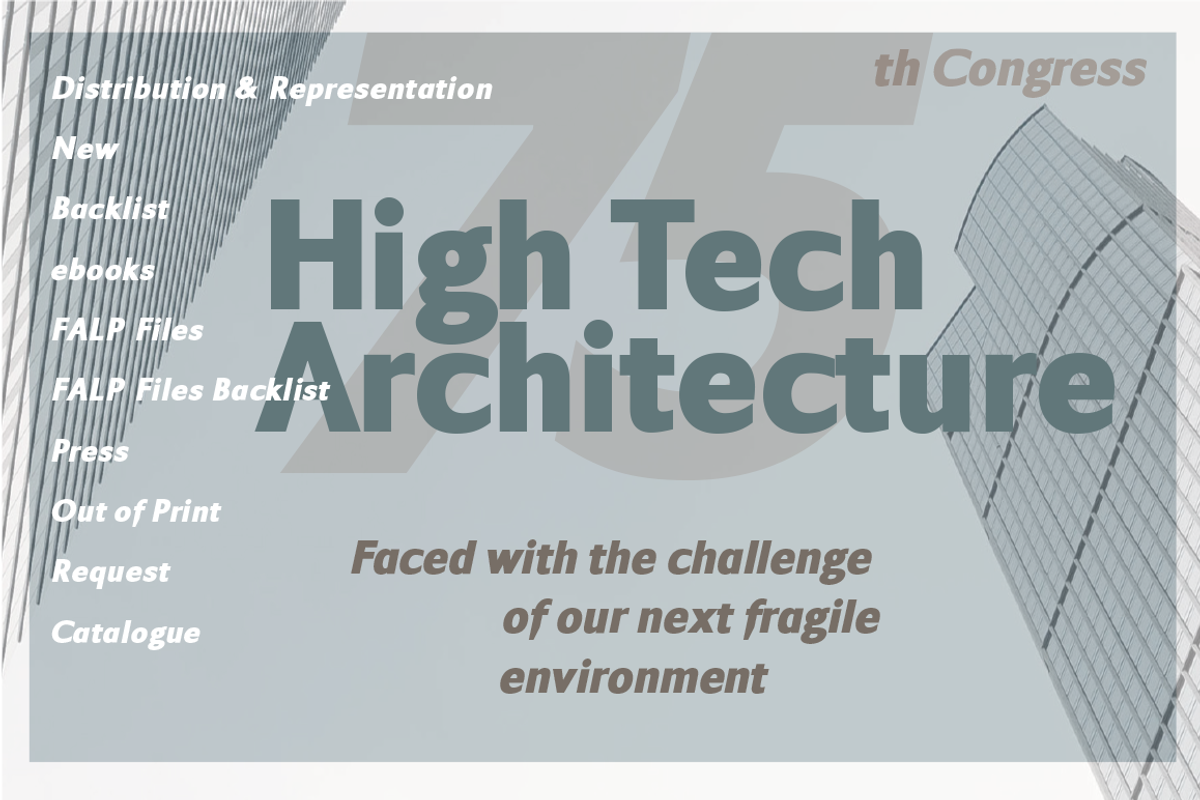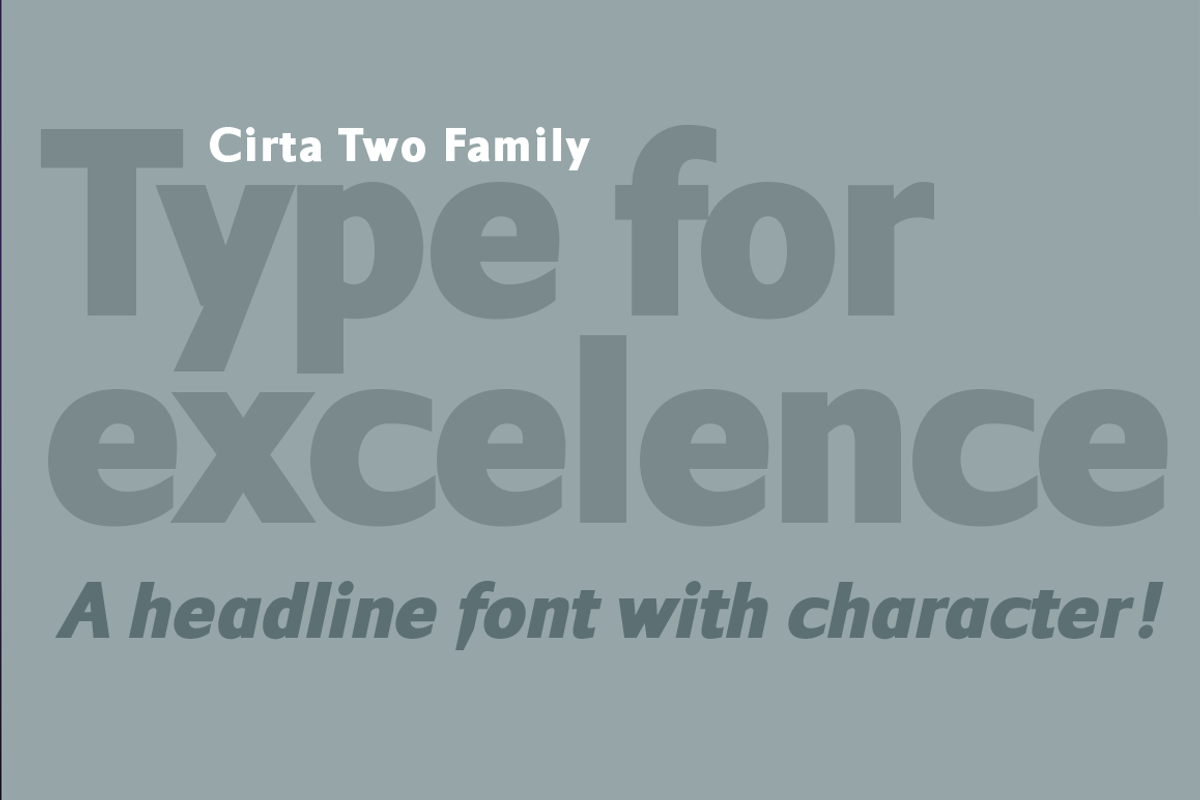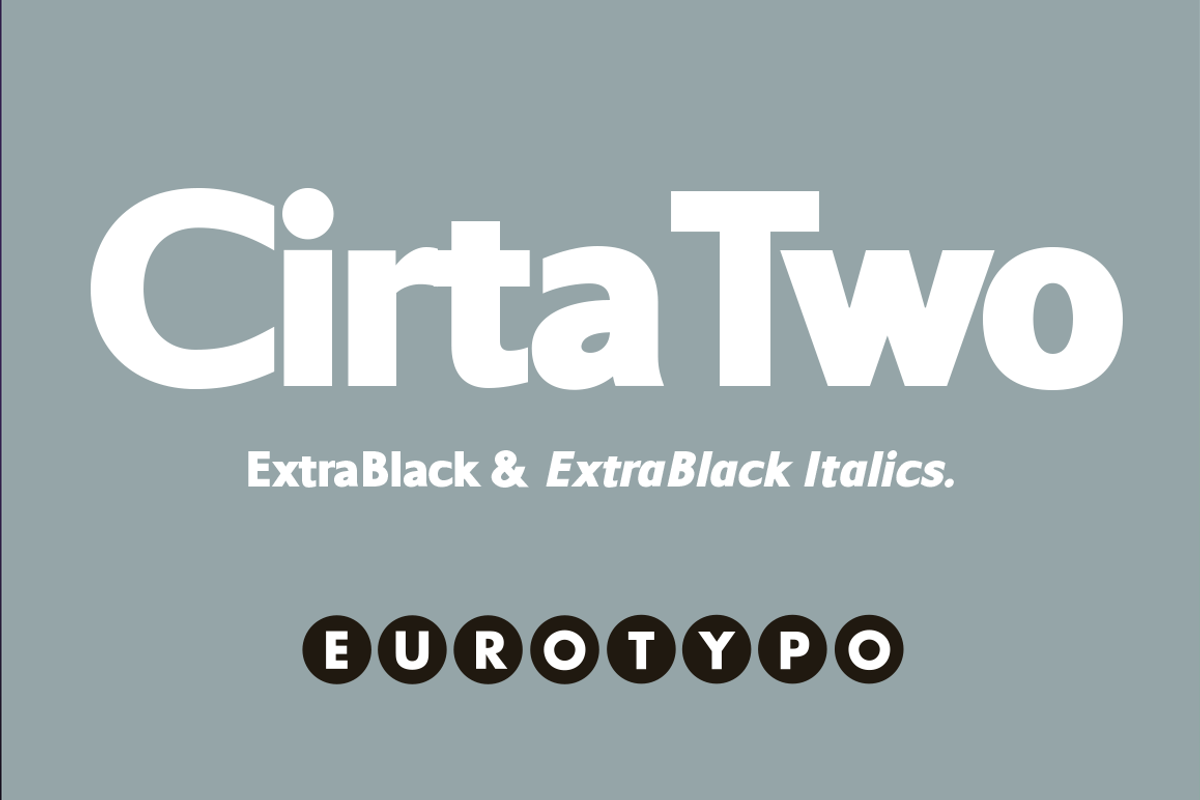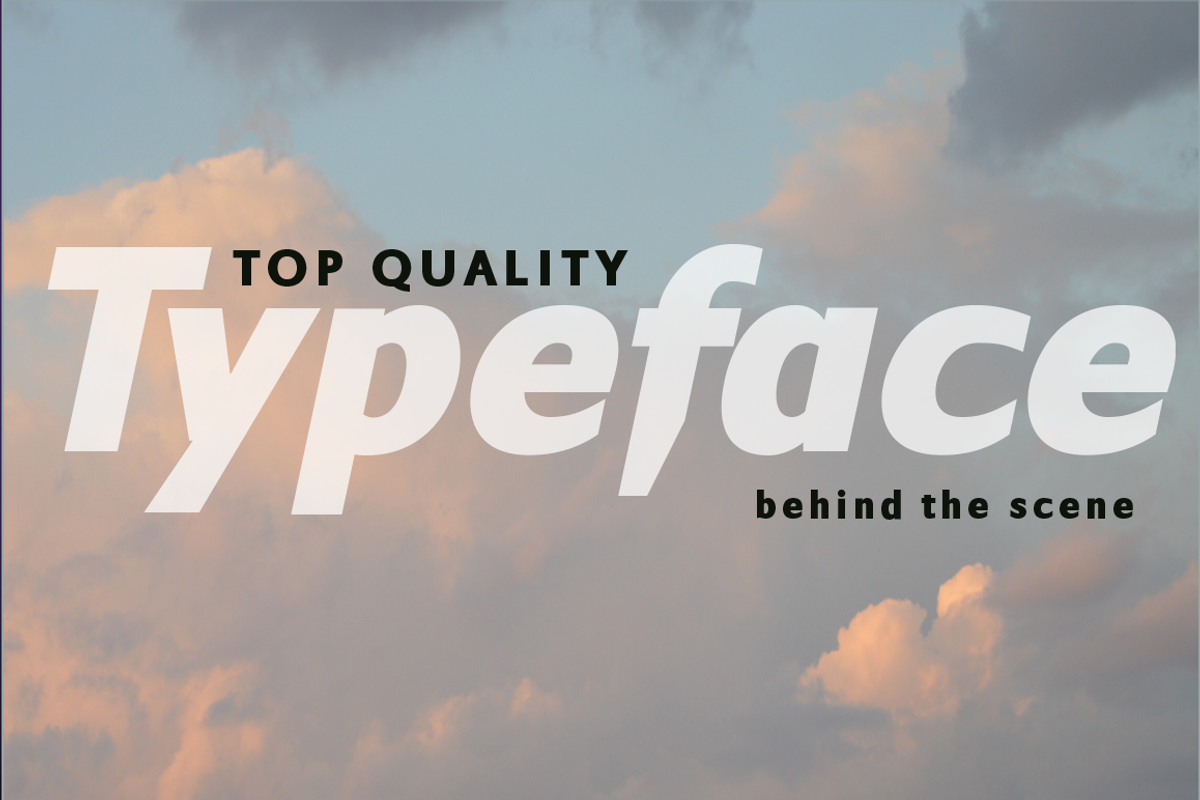
Cirta ExtraBlack & Italic
Design: Olcar Alcaide Publisher: Eurotypo
Cirta Two is a robust sans-serif font family of two fonts: ExtraBlack And ExtraBlack Italic. These fonts were specially designed to use as headlines in advertising, posters, street signs, websites or magazines for its forcefulness, visual impact and legibility. Includes alternative glyphs for standard and discretionary ligatures, as well as sets of numbers such as numerator, denominator, superscript, and subscript. In addition, it offers mathematical symbols for various mathematical applications.